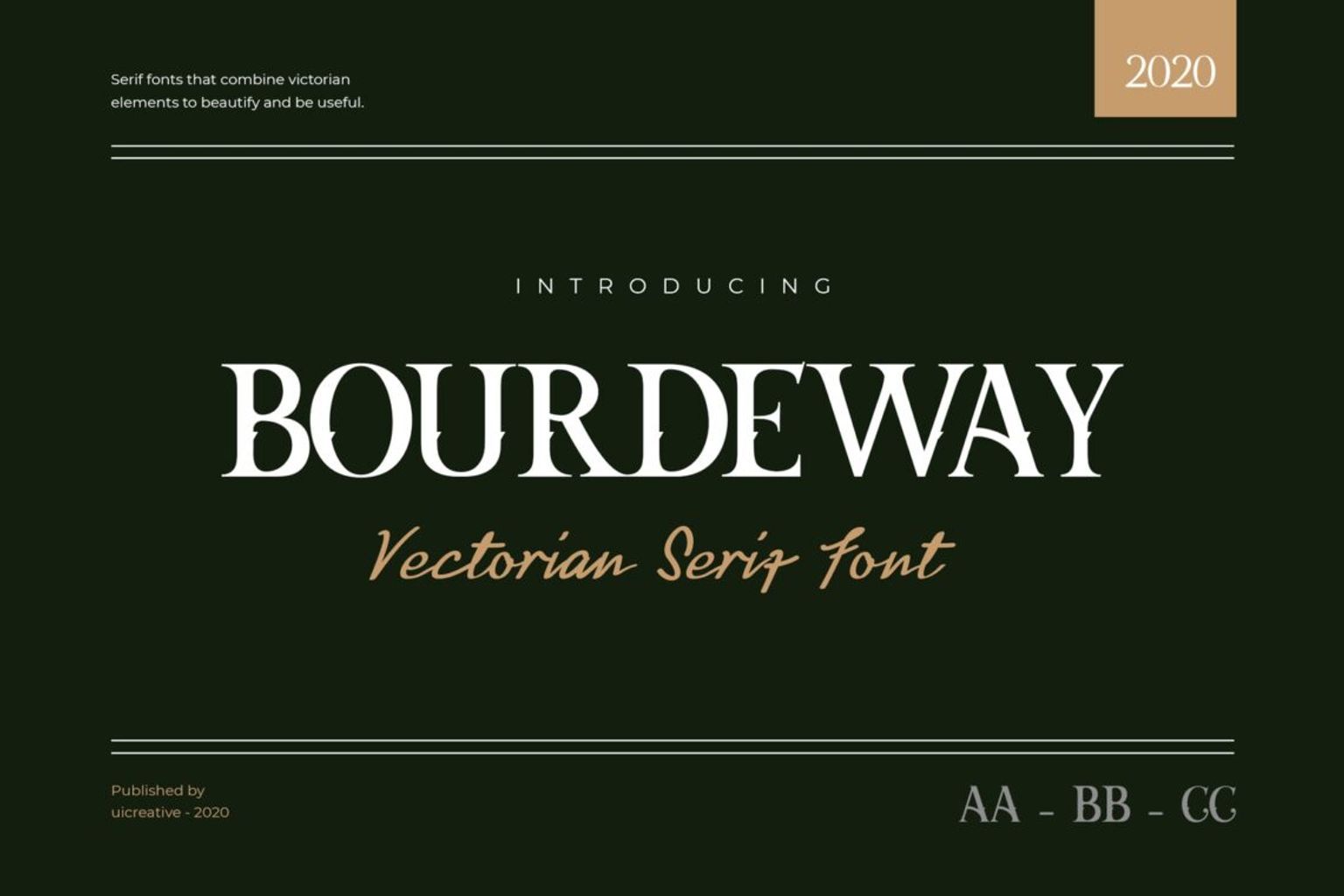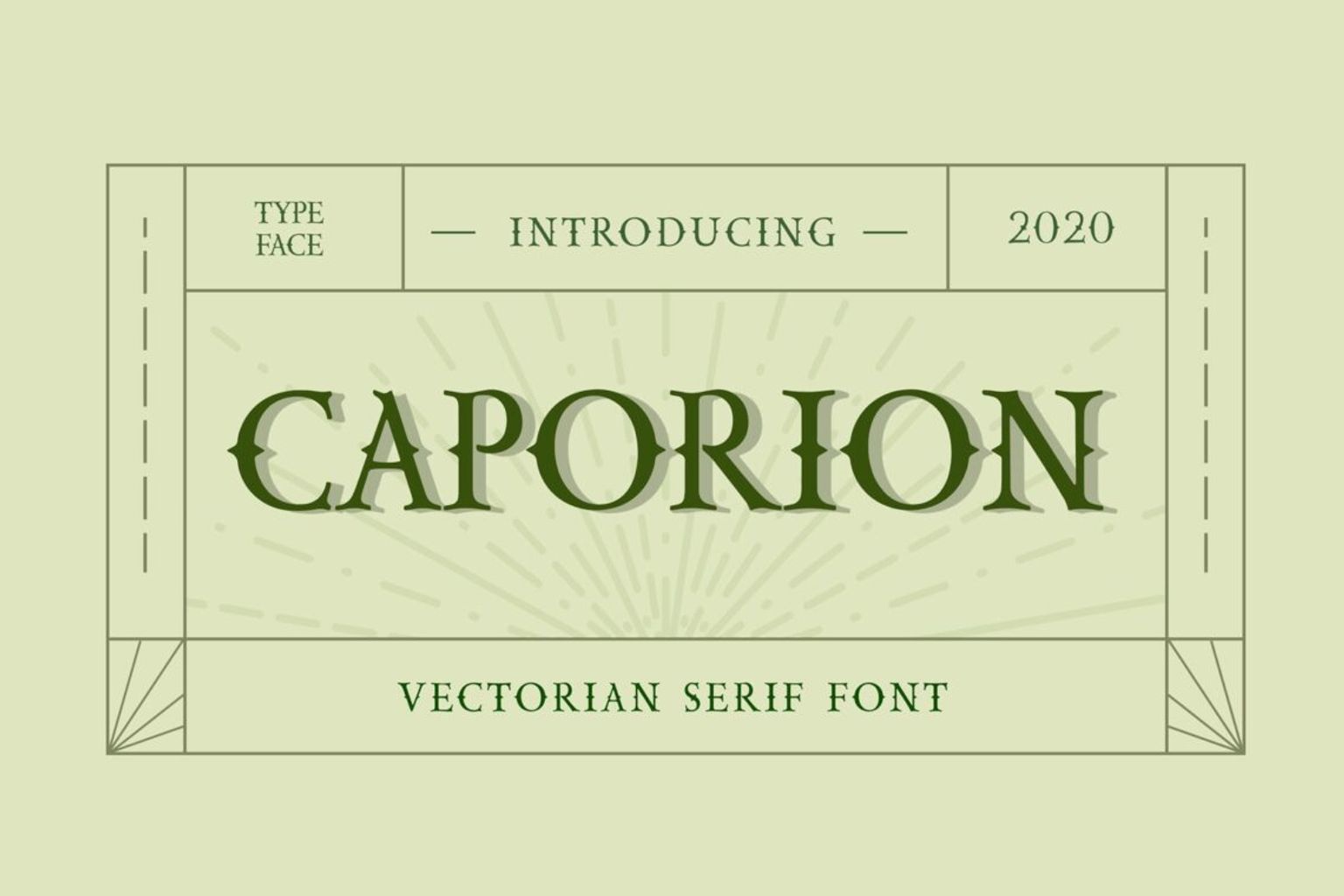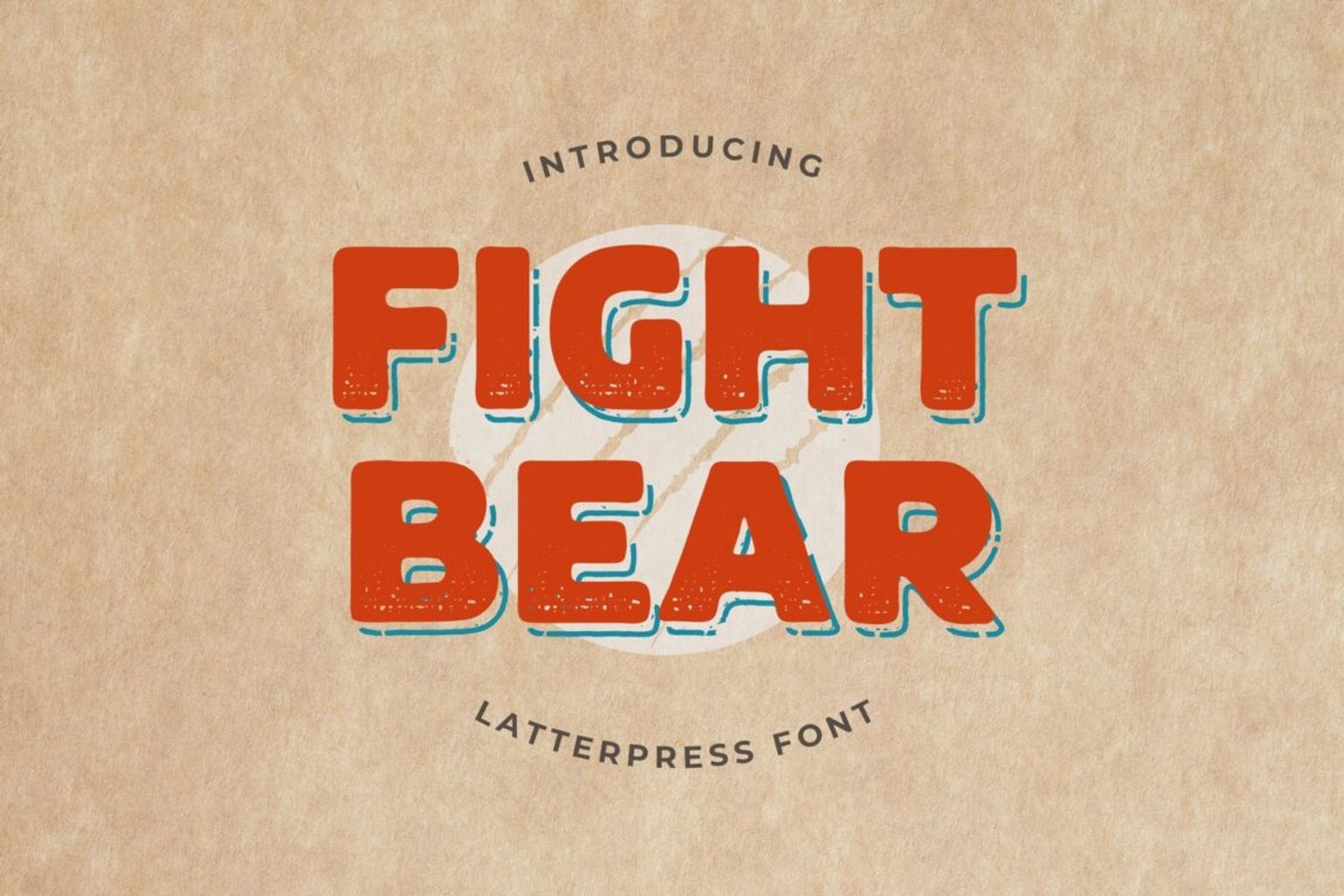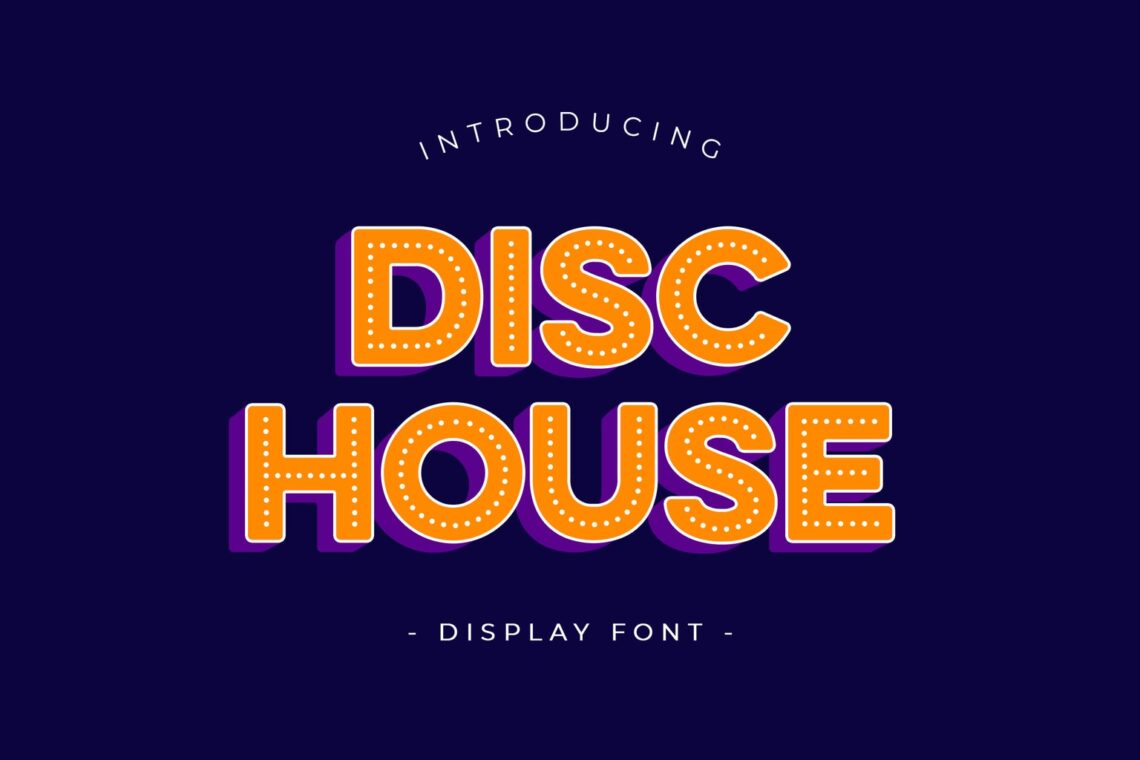
16 Best Fonts for Logo
16 best font for logo. Logo is a symbol of creativity. You need logo to perform something which is yours. Logo is published on items, advertising, social media, and events. Logo consists of picture and fonts. It needs to be memorable, so public will easily notice on something its sell. Font logo influences brand impression. Public would know items you sell by seing logo and fonts.
Here are best font for logo:
Fight Bear Display
Fight Bear has a friendly style. It suits for children and adult. Its uppercase in large design make it suitable for bags, hats, T-shirt, and story books. It is cute, especially when you add a layout picture behind the letters.
It is a simple and modern font style. It has an upright and normal letters combination that makes it looks formal enough. More details in it makes a good impression toward this font.
Disc House Play
Disc House Play becomes premium fonts for logos, especially for teenagers items. Its uppercase has light dots inside it. It makes the font looks elegant and modern. It is suitable for magazine brand, T-shirt, and goodie bags. To hold teenagers event, the font is suit for poster and souvenirs. This is a simple and elegant san serif letter. You may have it for various title of projects, including for children projects and books. It is clean and clear design make it easy to read.
Nandia Serif Typeface
Nandia is one of typeface logo design. It is one of modern Serif font. It looks like Hindi style with thin curves in some parts. Nandia is suitable for T-shirt, food brands, and goodie bags. However, you need to take actions in its color. Make a contrast view between background and font would look good and eye catching. It has a combination of letters that are simple and upright. It shows  a formal and clean impression. This attractive and premium font is perfect for a variety of books, journals, and brands including projects that require clear and classy font types.
Caporion Serif
Victorian Serif font which shows vintage style is Caporion. If you have an ancient product to sell, make this font to be your choice to create brand. It is suitable for fashion brand, travel item brands, and magazine. The strong style of this font with simple callygraphic explores the unique side of it.
This is a premium and high-resolution font. It is a letterpress family with exceptional vintages and charm. Having a texture of motifs and additional icon makes this font look more special and stylish. There are a combination of neat and flat typography text at the top and bottom of the font. It makes this font can be applied to all types of designs like family movies and historical books and comics.
Modavina Display Brush
Modavina is one of font for handwriting logos. It is simple, attractive, and look like a signature. Its uppercase has an eye catching style. Therefore, it is said as handbrush. It is suitable for young and trendy concept of brands like shoes, fashion, bags, hats, snacks, cafe, and publisher. It is a well attraction font design. The combination color and dots in it make it looks brighter. Therefore, it is suitable for children movie, children books, magazine for teenagers, and something to be deal. his font also represents the characteristics of natural paint. They are  firm and thick. It has a combination of basic fonts with curves and shapes. Both of them  are different but remain parallel between fonts. Therefore, they will look neat and clear and suitable for being display title. By having the thick weights, It is perfect for adding image and make people interested in reading or seeing.
Bourdeway Serif
Another Victorian Serif font is Bourdeway. It looks powerful with artistic touch in its uppercase letters. This font is supported by number and puntuation in same style. You will love it when it is used on T-shirt and casual outfit brands. Adventure items brand and merchandise will look great to use this font. Some food brands will use it too in their packaging. Who is the target of customers? Young persons who want to look mature. Adults and middle age community would like something vintage.
Moor Vantage
Moor Vantage is a vintage font with light style and appearance. The wavy touch in its every uppercase makes it semi-modern. This font is suitable for fashion brand and comics. The target is middle age customers who love joke and casual things. The font is also look good for snacks. It is a San Serif style with more crowded design. It has a casual style in bigger size. It is suitable for product title and a title of children book story. A fancy style in it also looks great for T-shirt typography. Everyone in any industry may use it.
Honey Pocaline Serif
Regular Serif font which becomes the best business logo font is Honey Pocaline. Remember how Harry Potter becomes popular with similar font as this make you know the use of this letter. Clear, thin, and look like handmade, it is suitable for fashion, stationary, bags, and hats for teenagers and high school community. Its trendy design make it elegant and full of cherish. Even to use it exclude brands, it is suitable for headline, novel cover, magazine, movie title, poster, presentation, and merchandise.